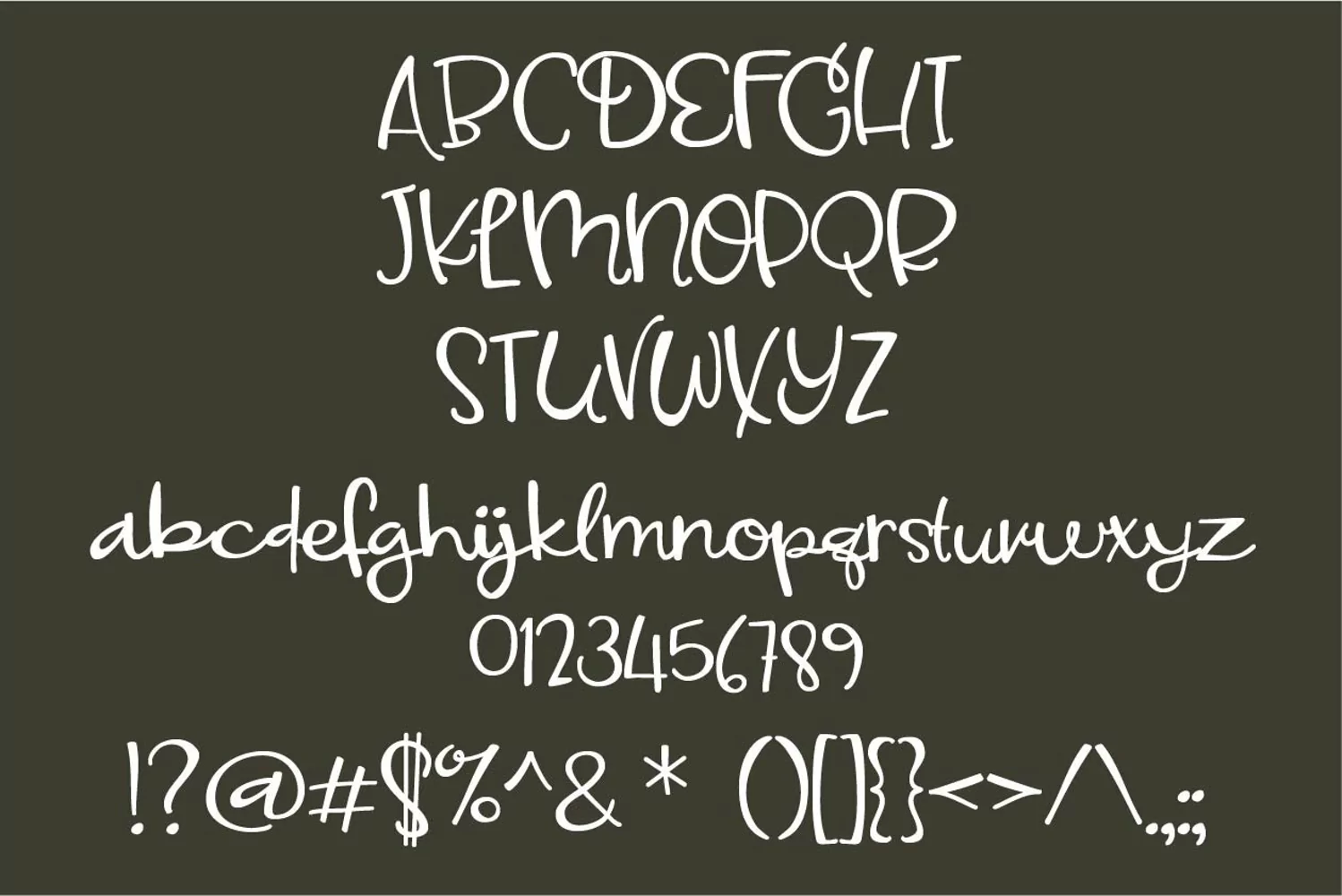
Dreamscape is an enchanting handwritten font. This versatile script font has a wide spectrum of applications ranging from greeting cards to headlines and is guaranteed to add a romantic feel to your next project. Includes regular and bold.